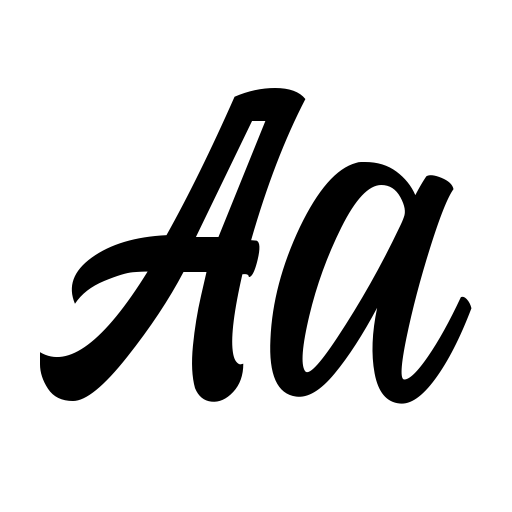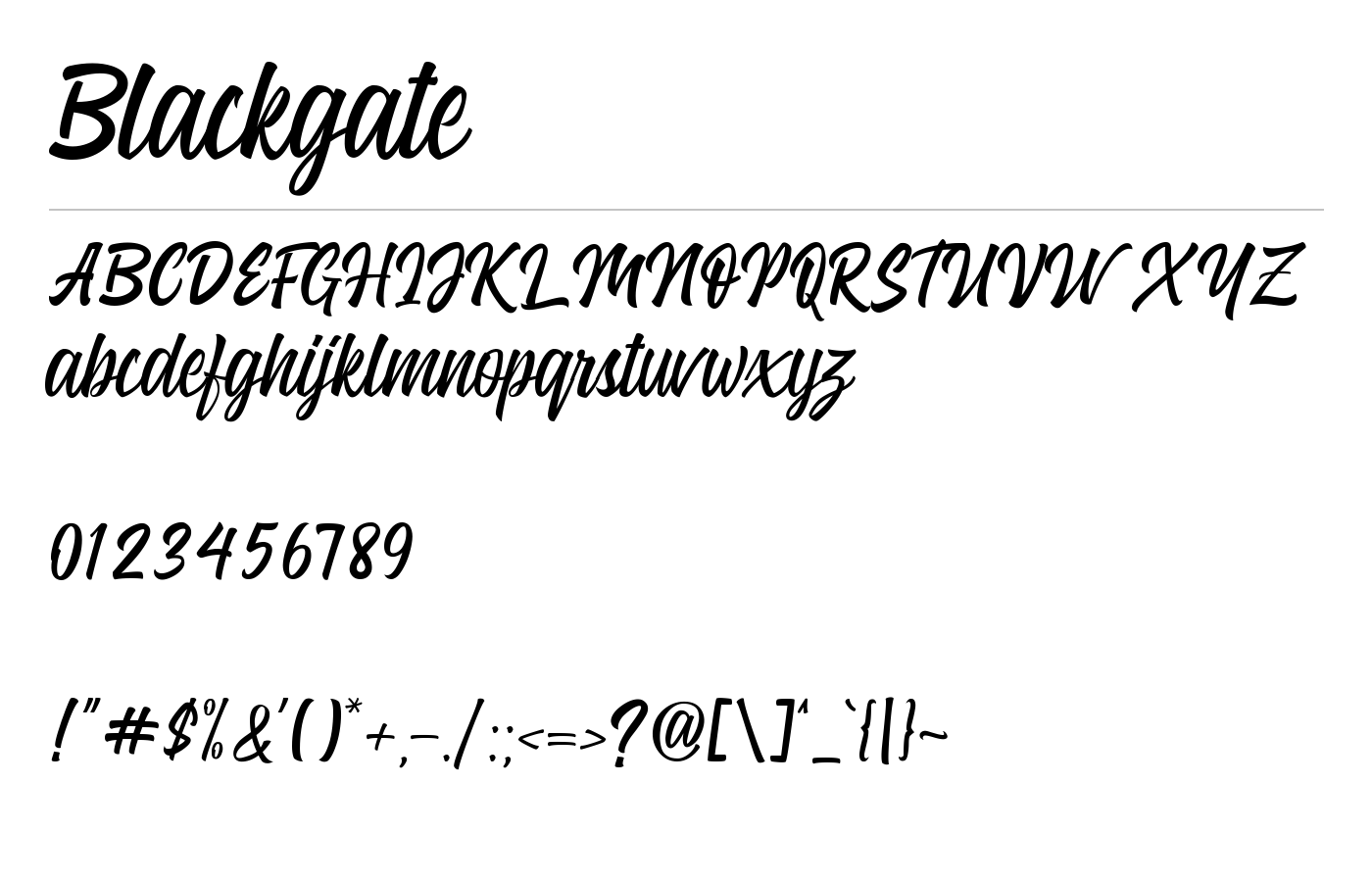
Blackgate is a lively script font with smooth, flowing letterforms that convey elegance and warmth. Its medium weight and slightly condensed style make it versatile for branding, invitations, and headlines where a personal, handcrafted feel is desired. This font's playful yet refined character suits creative projects seeking a stylish, approachable look.
Blackgate Font